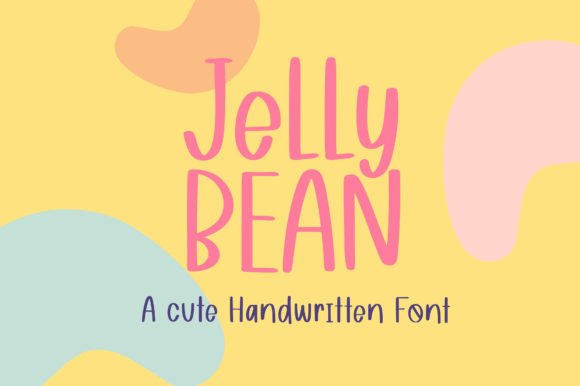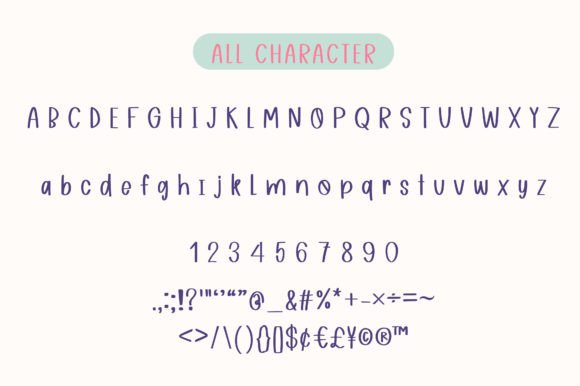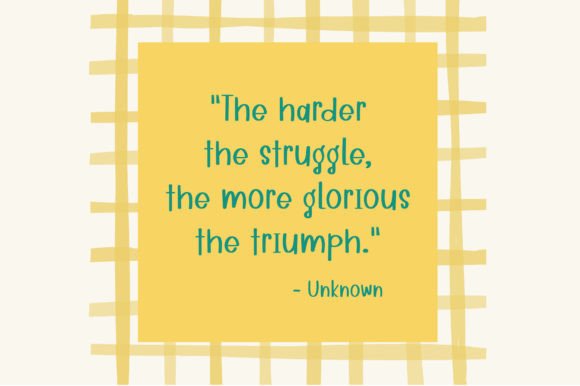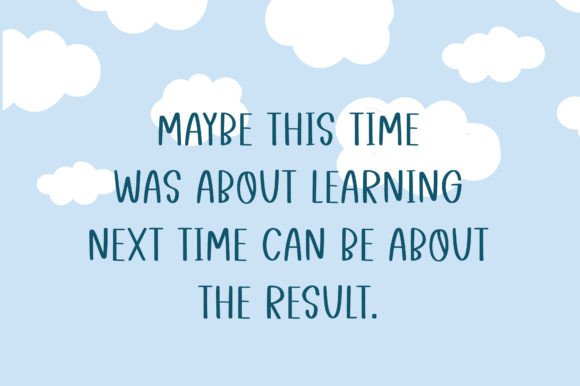
Jelly Bean Font Font
About the Jelly Bean Font Font
Explore the possibilities with Jelly Bean Font Font, a font that offers both beauty and functionality. Indulge in the whimsical world of typography with the JellyBean Font — our way of simplifying beauty and efficiency. This adorable, neat handwriting-styled font is precisely designed for your digital convenience. It’s a perfect companion for your digital study notes, streamlining note-taking, and invigorating collage notes with its fresh, handwritten touch.
JellyBean Font’s playful, handwritten style makes it ideal for projects requiring a friendly and approachable aesthetic. It excels in short-form applications such as logos for children’s products, social media graphics, invitations, and short headlines. Avoid using it for large blocks of text or body copy; its informal nature is less suitable for readability in longer passages or UI elements.
Pairing JellyBean Font with a clean sans-serif like Open Sans for body text creates a pleasing contrast, balancing its whimsical nature with a clear, functional element. For a more sophisticated feel, consider pairing it with a delicate serif font such as Lora. This combination retains the playful essence while adding a touch of elegance.
The font’s core personality is undeniably cheerful and informal. Brands targeting a young, vibrant audience, particularly those in the children’s, education, or lifestyle sectors, will find it highly effective.